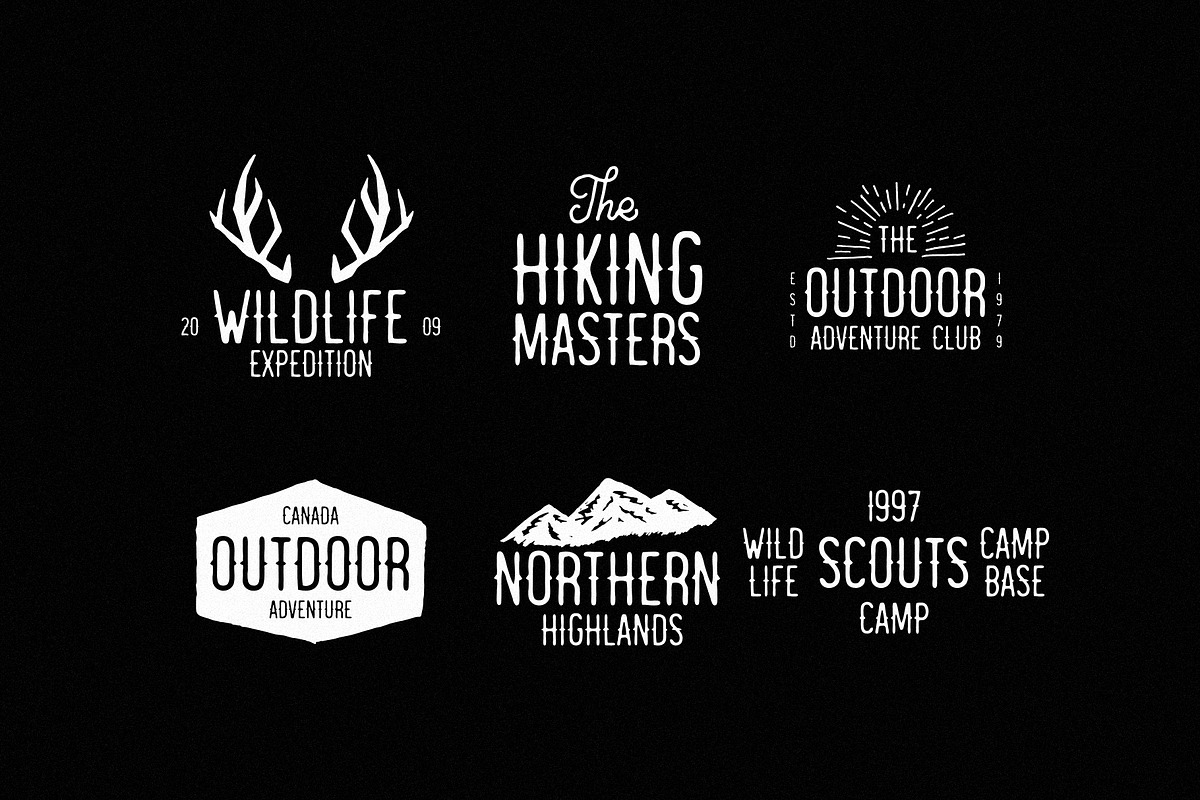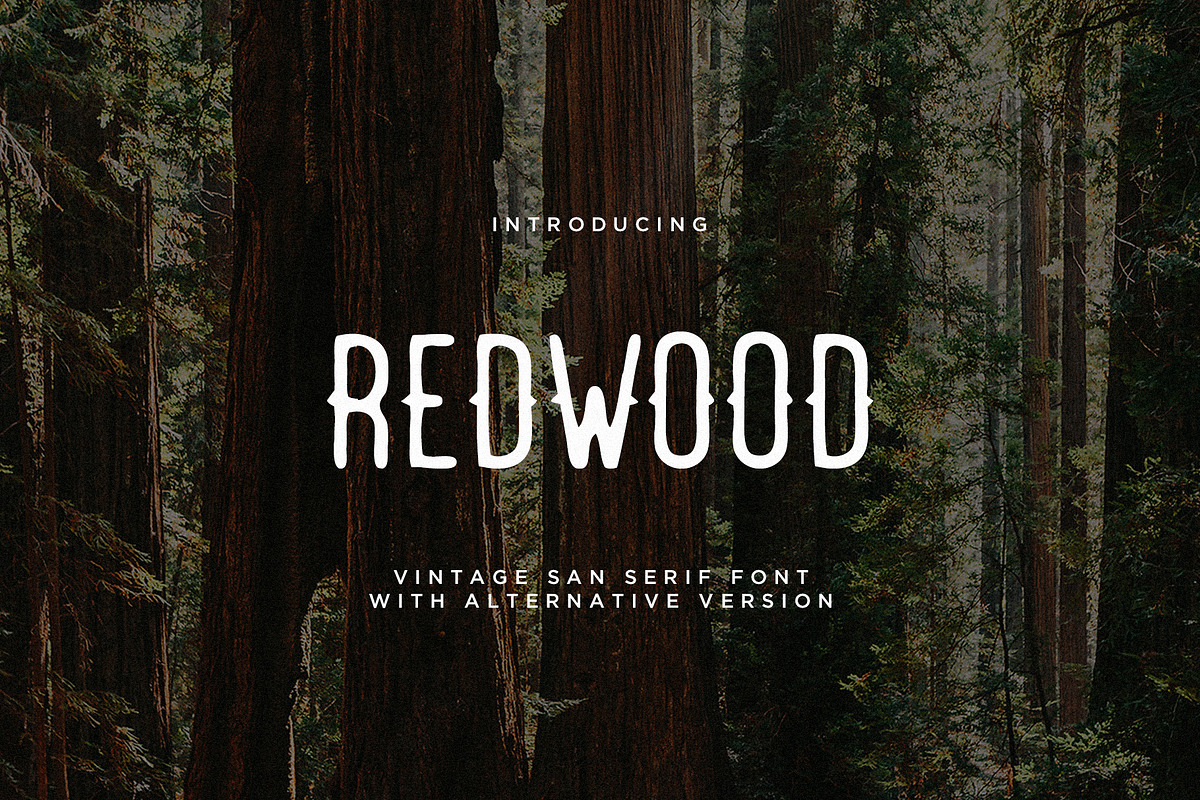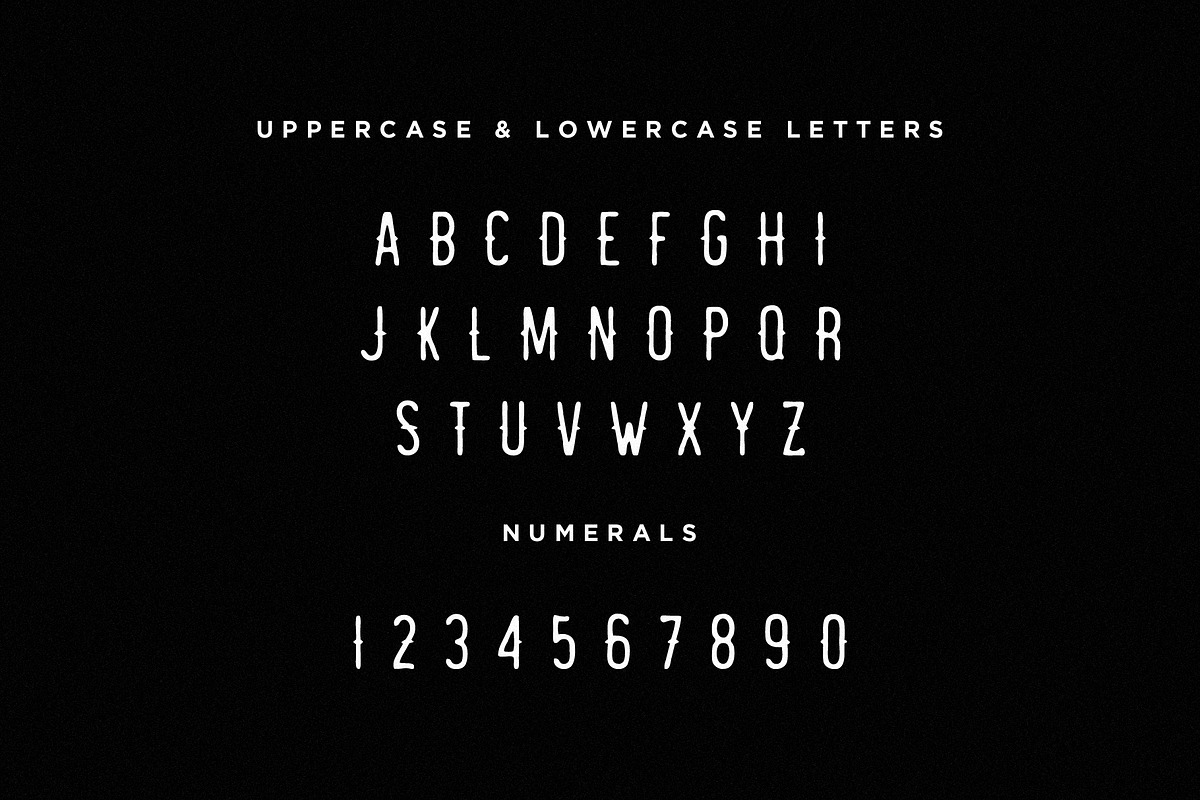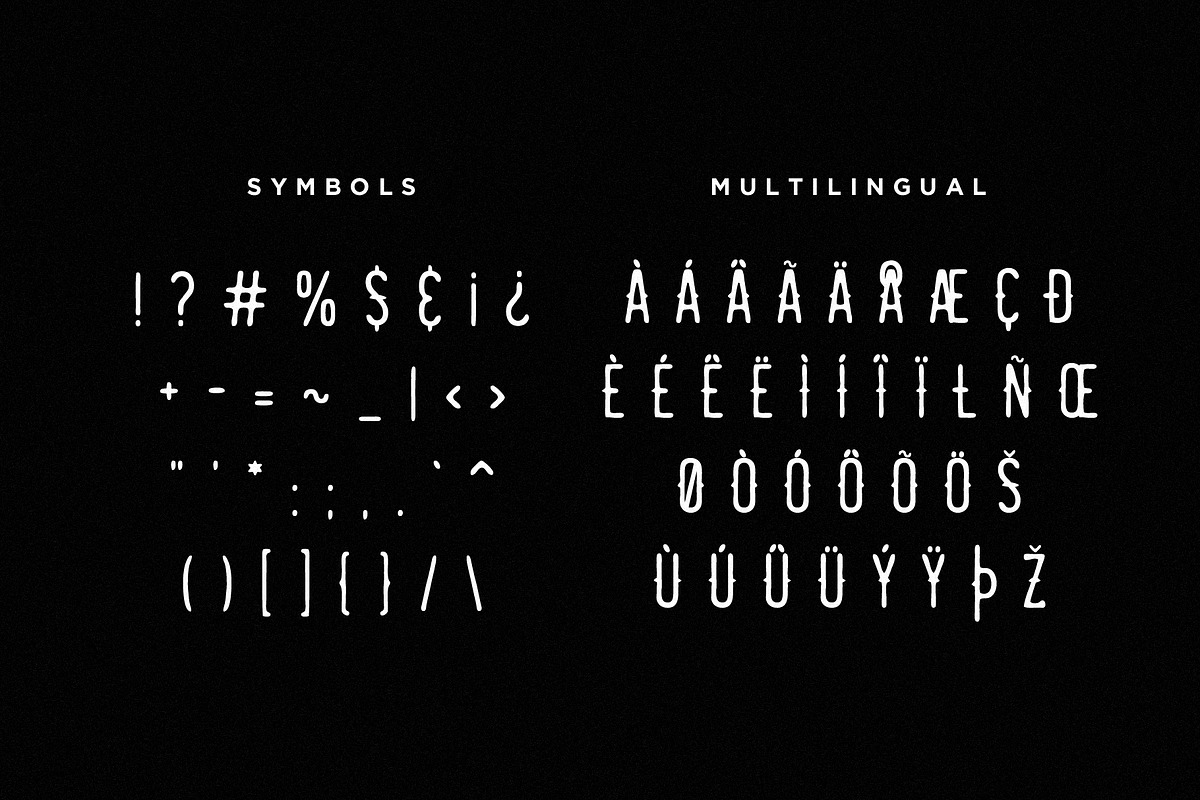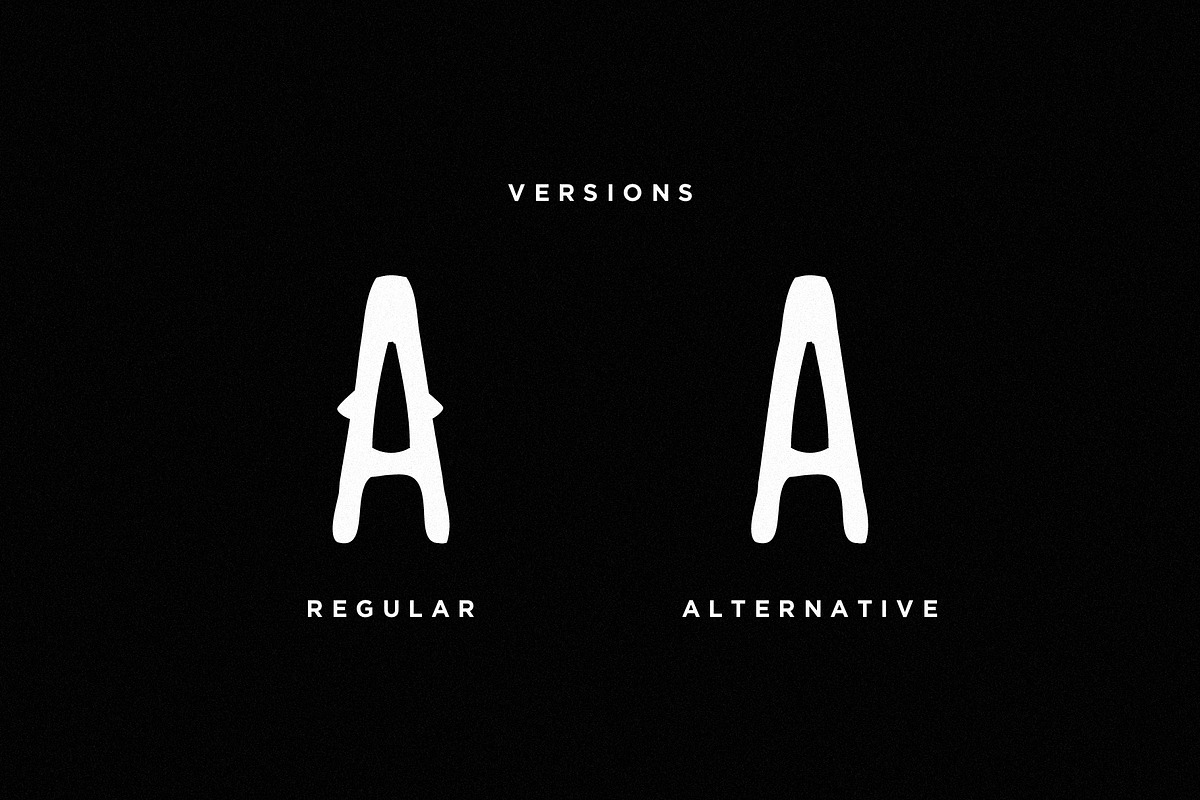
Redwood Font + Extras
Redwood is vintage sans serif hand drawn font with a rough look with alternative version. Redwood is perfect for branding, logos, t-shirts, hoodies, etc.
2 Versions: Regular, Alternative
- 2 Versions: Regular, Alternative
- Letters